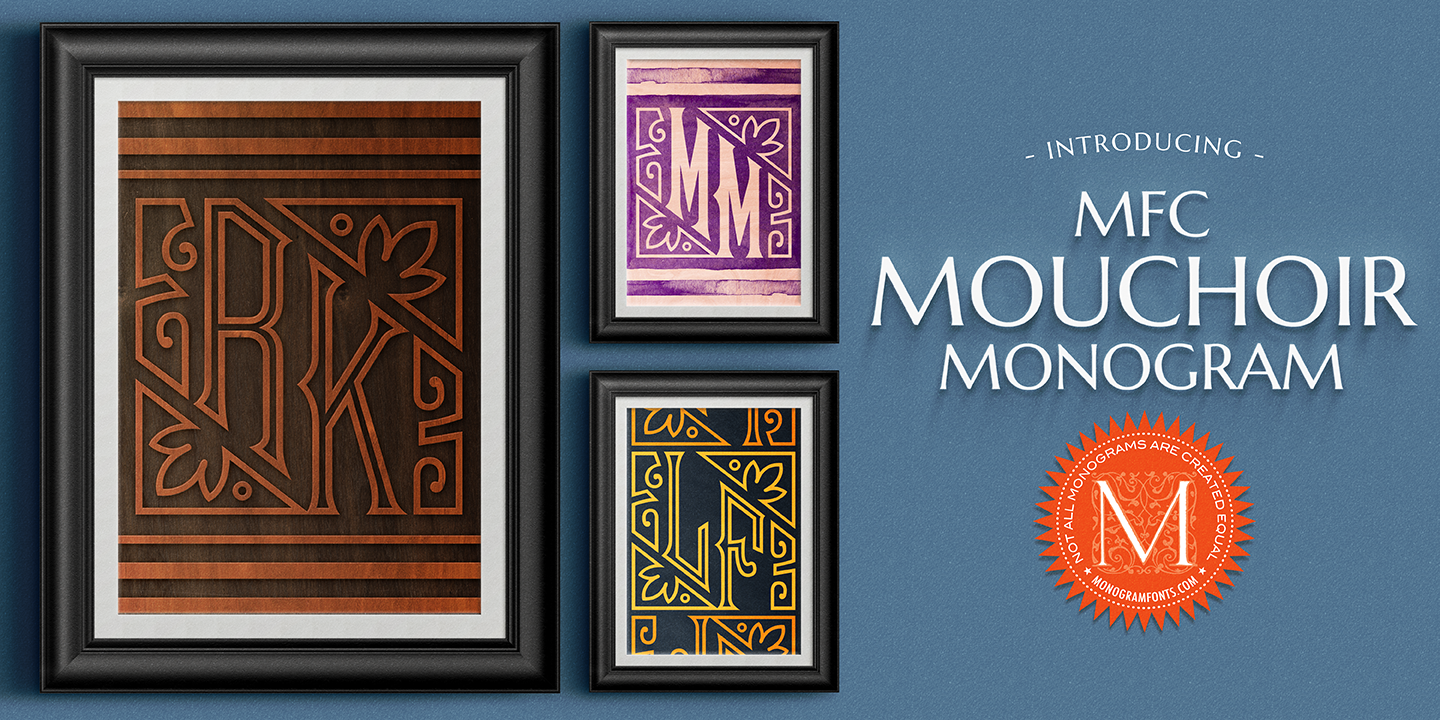
MFC Mouchoir Monogram Font is an exquisite choice for projects that demand a sophisticated, personalized, and distinctly ornate aesthetic, perfect for creating beautiful monograms and decorative initials. It's perfectly suited for elegant wedding stationery, luxury branding, bespoke gift items, embroidered designs, and any application where you want to evoke a sense of classic artistry and personalized charm. Imagine it gracing a custom-engraved piece of jewelry, adding an air of timeless sophistication to a high-end invitation, or giving a distinctive, handcrafted feel to a family crest or personal emblem. Its intricate flourishes and harmonious letterforms ensure your designs are conveyed with both profound beauty and undeniable elegance.
What makes MFC Mouchoir Monogram Font so exciting is its dedicated design for the art of monogramming, offering a comprehensive set of characters that interlock and complement each other to create stunning decorative combinations. It captures the essence of personalized craftsmanship, allowing designers to produce bespoke visuals that feel truly unique and deeply meaningful. This font isn't just about displaying initials; it’s about creating a symbol of identity, adding a layer of bespoke artistry and refined heritage to your projects. It's the ideal tool for designers looking to infuse their work with a unique, custom feel and a strong, elegant appeal.
The MFC Mouchoir Monogram Font family typically focuses on delivering its signature ornate and interlocking styles with precision. You'll find specific characters designed to combine beautifully, often including a standard "Regular" weight that showcases its detailed design, and potentially alternative stylistic variations or special characters (like left, center, and right initials) crucial for perfect monogram creation. These nuances ensure that MFC Mouchoir Monogram Font Free Download can be the cornerstone of a truly unique and powerfully thematic visual identity, helping your designs stand out with an undeniable sense of character and profound elegance.